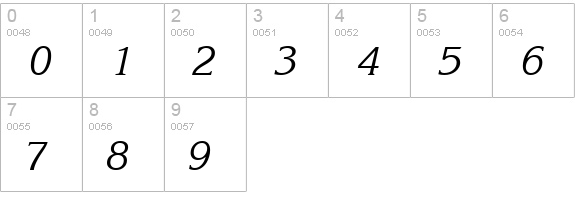
Korinna Kursiv Regular BT Font Details
Korinna Kursiv Regular BT is the standard, neutral variant in the Korinna typeface family \xE2\x80\x94 well suited to general body text, paragraphs, and standard typographic work.